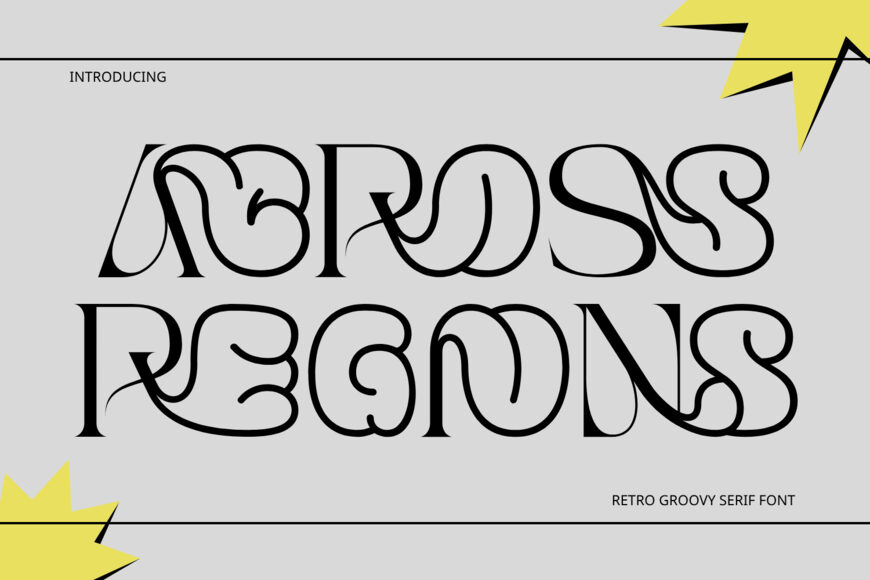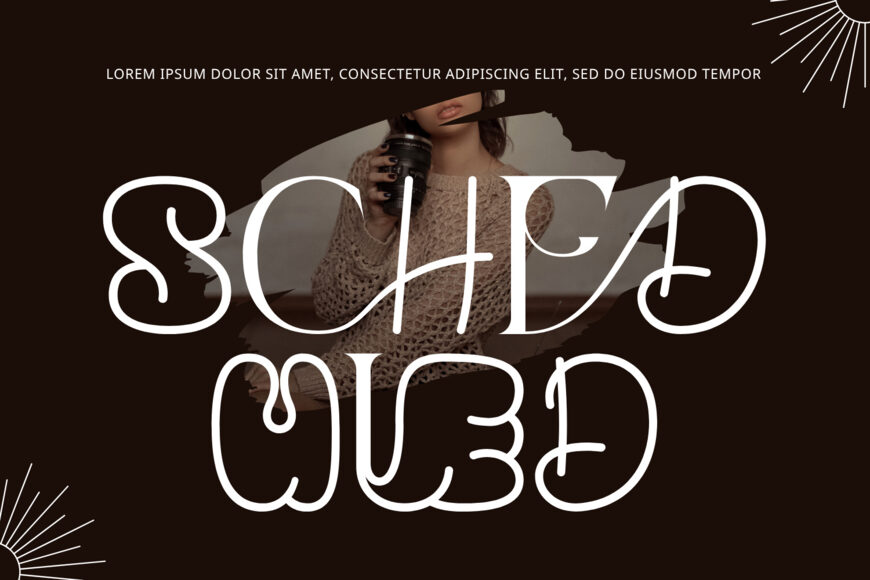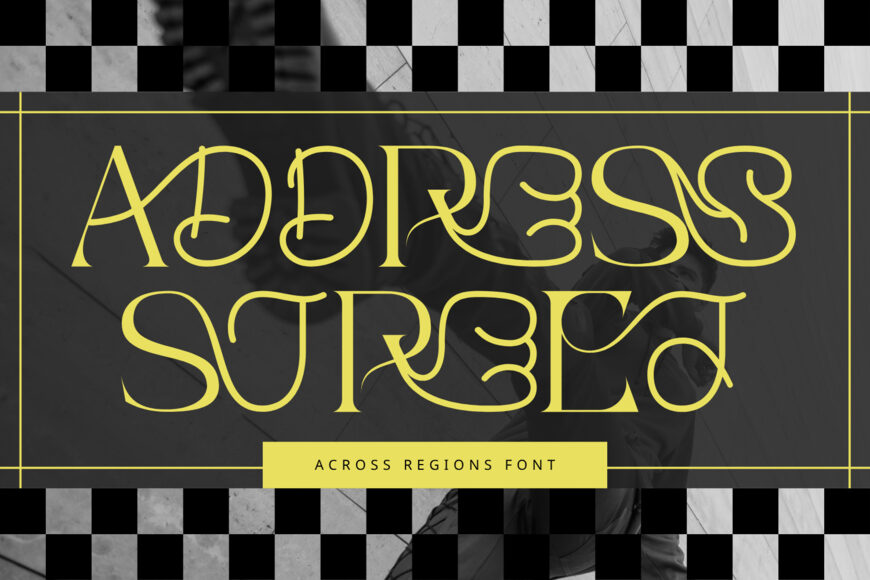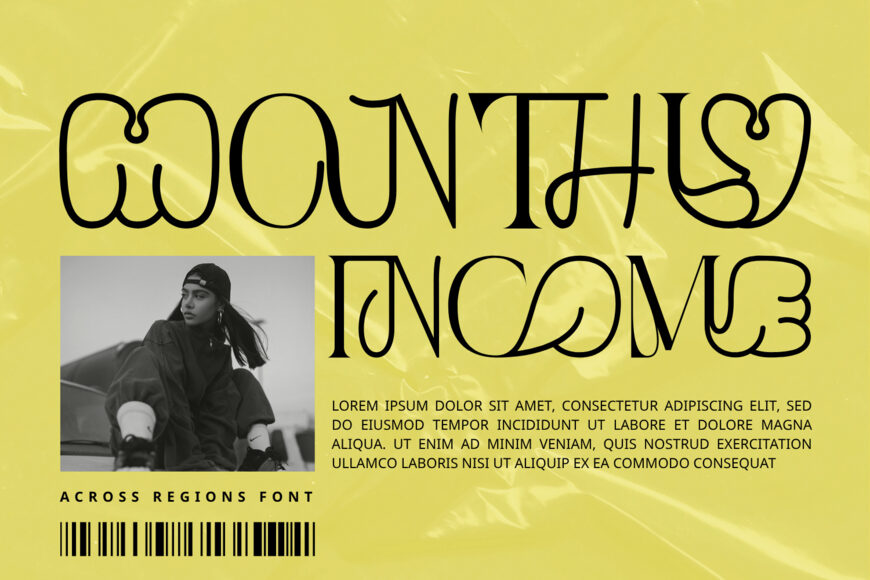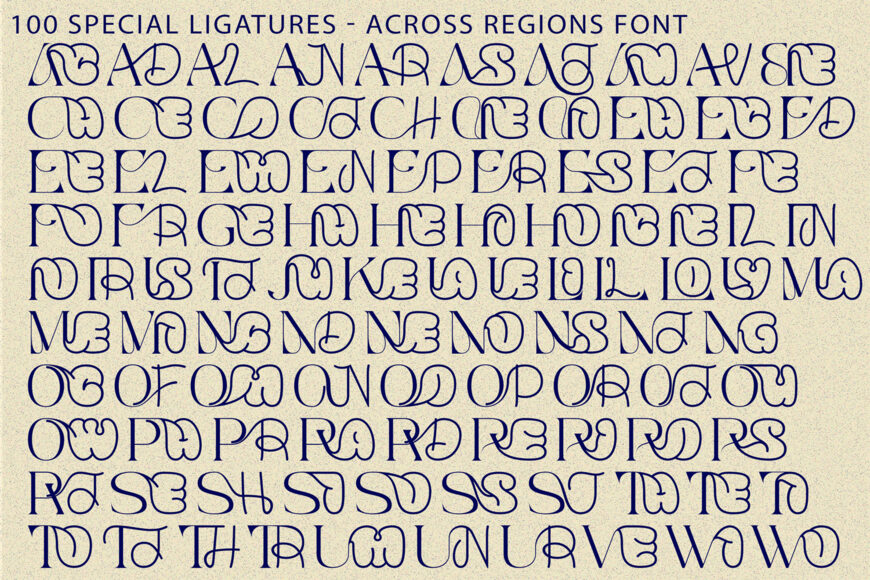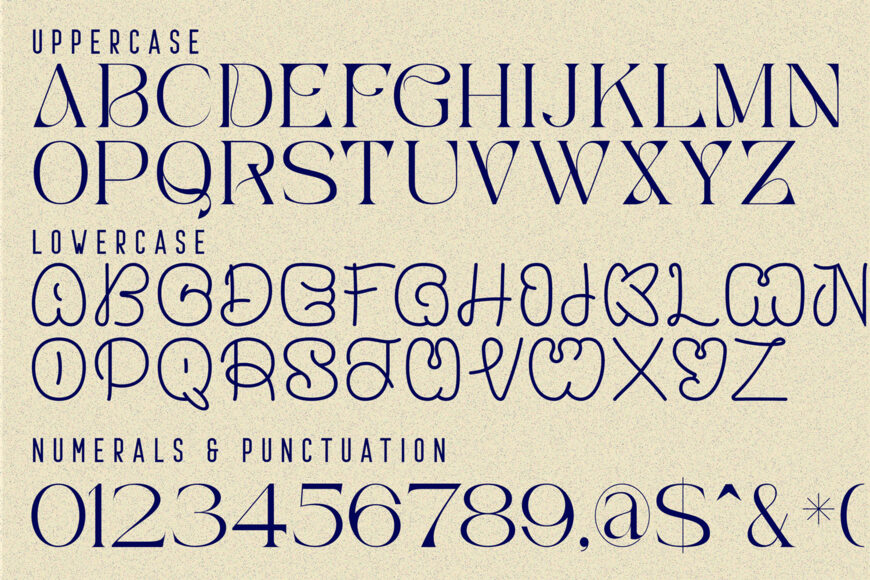
Across Regions is a spellbinding psychedelic display font engineered with intricate interlocking loops and fluid, organic curves. Harmonizing the decorative elegance of Art Nouveau with the rebellious energy of modern acid graphics, this typeface seamlessly weaves adjacent letterforms together to construct an unforgettable, trippy visual rhythm.
Designed for high-impact headlines and custom typography layouts, Across Regions expertly balances razor-sharp serifs against sprawling, liquid loops. It is the ultimate display choice for album artwork, festival posters, streetwear apparel, creative beverage packaging, and edgy branding identities that break free from conventional design boundaries.